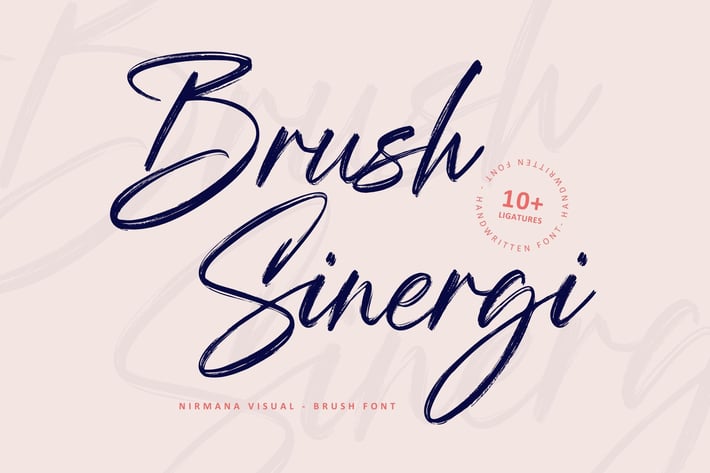
Brush Sinergi - Brush Script Font
Brush Sinergi - Brush Font
Brush Sinergi - Brush Font offers beautiful typographic harmony for a diversity of design projects, including logos & branding, social media posts, advertisements & product designs.